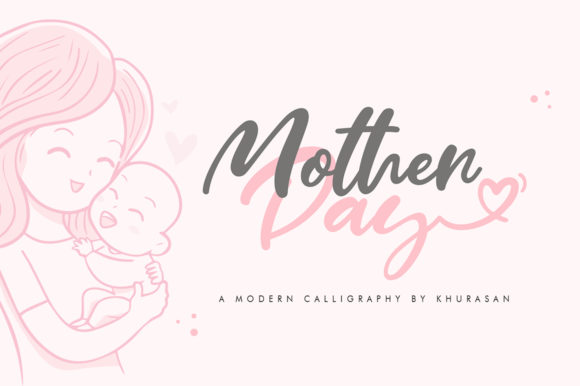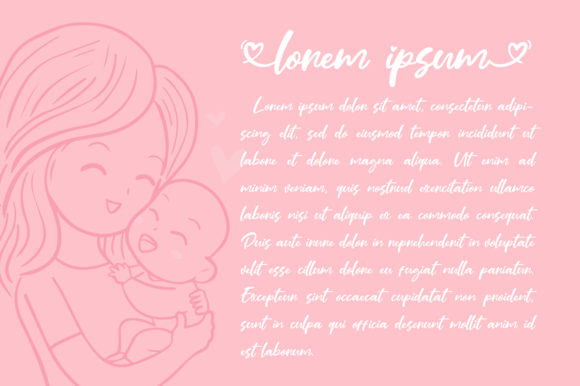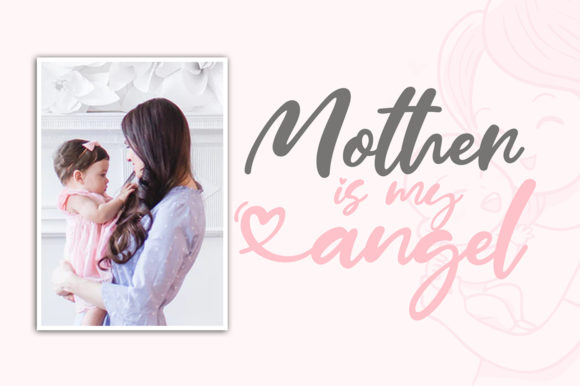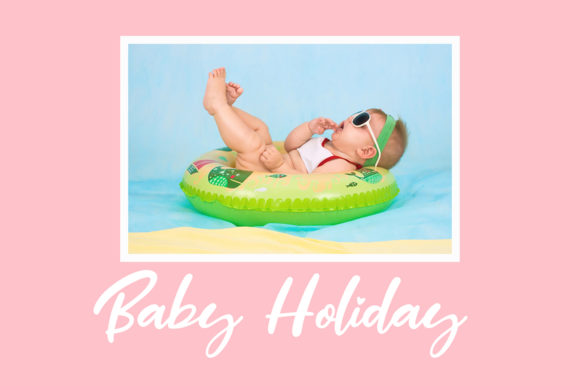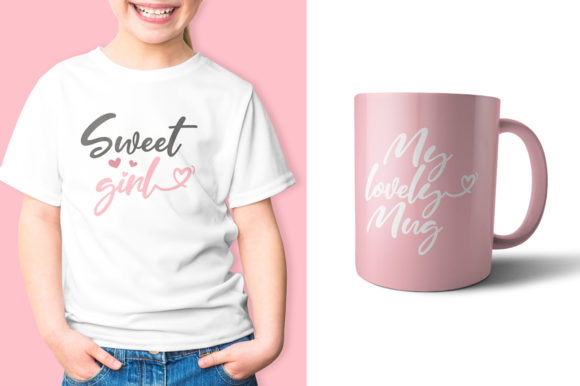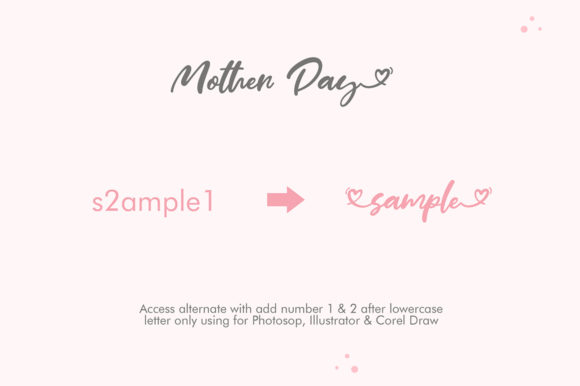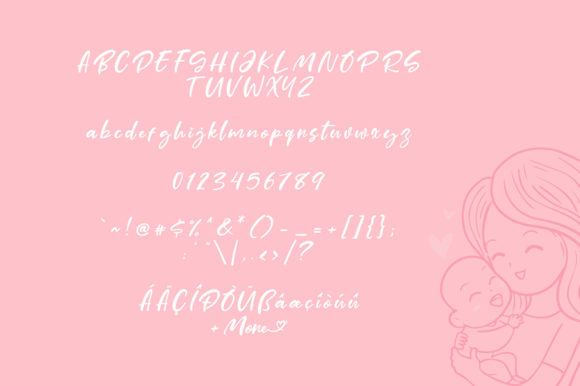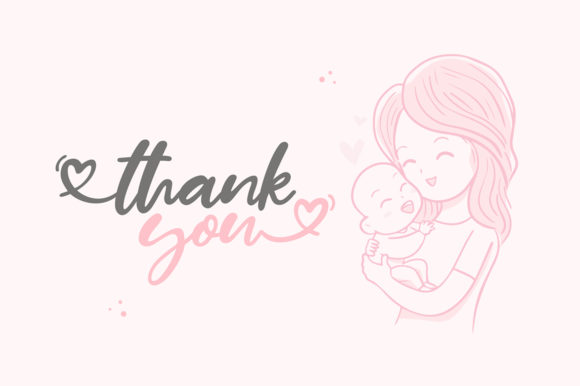
Mother Day Script Font
About Mother Day Script Font
Mother Day is a beautiful handwritten font with a joyful feel. Fall in love with its elegant, yet adorable charm.